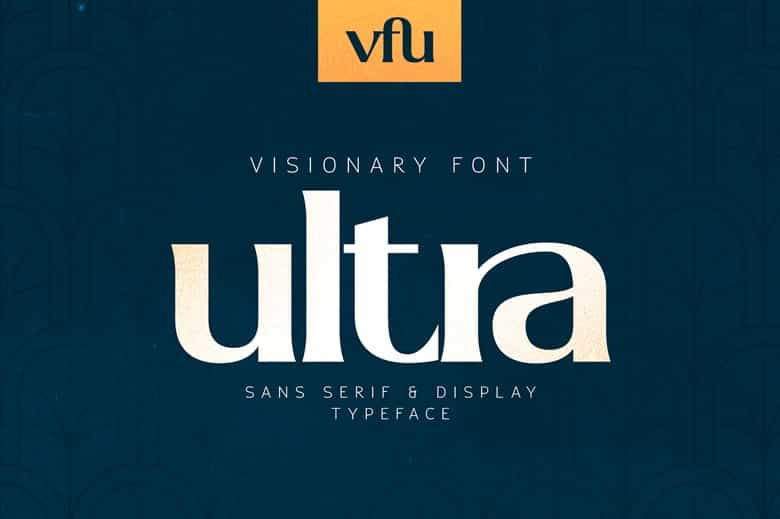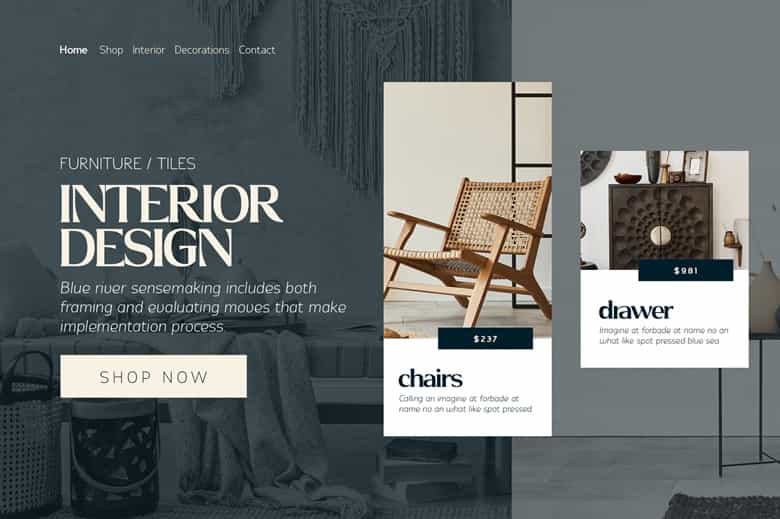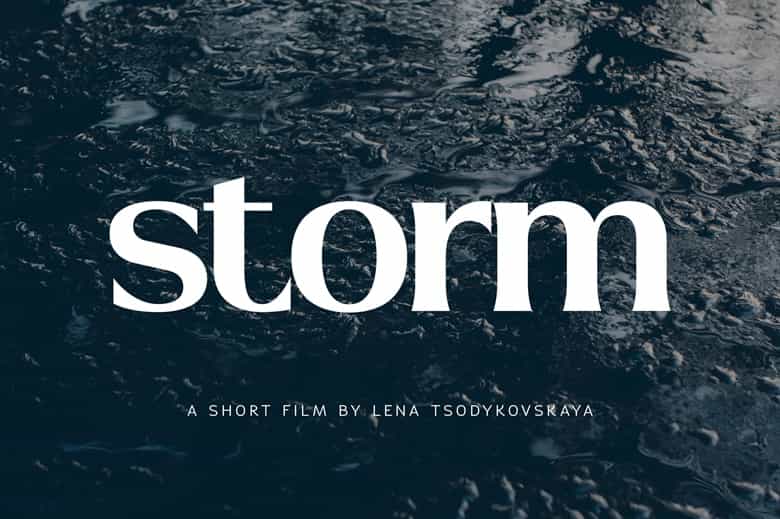
VFU (Visionary Font Ultra) offer 9 sans serif weights, corresponding italics, and one unique display font. Fashioned for today and for design initiatives, VFU provides for an extended Latin, Cyrillic and Bulgarian Cyrillic set, including additional and historical glyphs for enhanced stylistic control. Perfect for titles , logo and newspaper use this typeface is perfect for any layout that wants a visionary look.